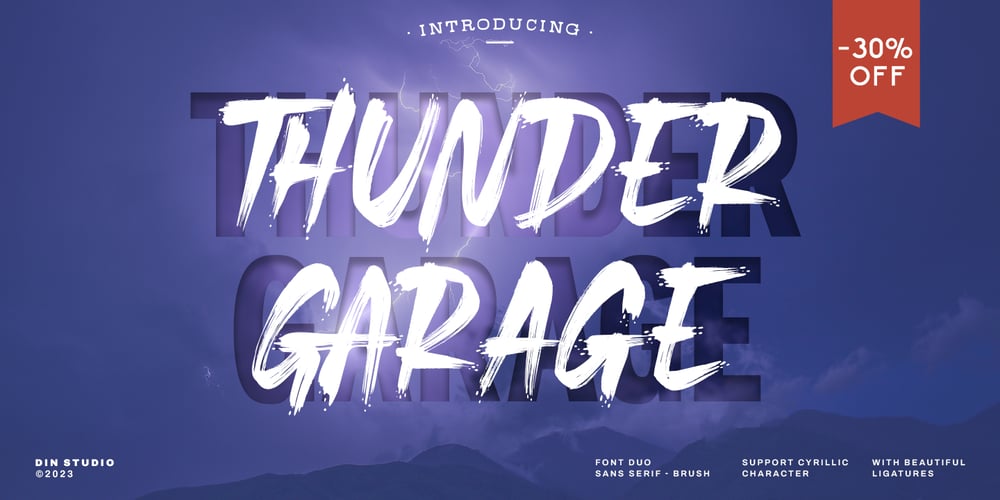
Thunder Garage
Thunder Garage font
Thunder Garage Font Family was designed by Donis Miftahudin and published by Din Studio. Thunder Garage contains 2 styles and family package options. Font is the most significant design element which can be difficult to find the excellent one for a certain design. For that reason, we offer you a solution by combining two fonts into one. With Thunder Garage, finding a perfect font combination is never this easy.Thunder Garage is a duo font combination between brush and sans serif fonts which you use together in one design. Each font is beautifully created to support one another perfectly. Using a duo font gives interesting contrast and visual variations to your designs. The brush font is made similar to a handwriting style with brush details to show you personal, informal impressions. You are free to use this duo font as either one lovely set or as separated parts based on your needs. In addition, enjoy the other features available in this font.Features: Ligatures Multilingual Supports PUA Encoded Numerals and Punctuations Thunder Garage fits best for various design projects, such as brandings, posters, banners, logos, magazine covers, quotes, headings, printed products, merchandise, social media, etc. Find out more ways to use this font by taking a look at the font preview.Thanks for purchasing our fonts. Hopefully, you have a great time using our font. Feel free to contact us anytime for further information or when you have trouble with the font. Thanks a lot and happy designing.